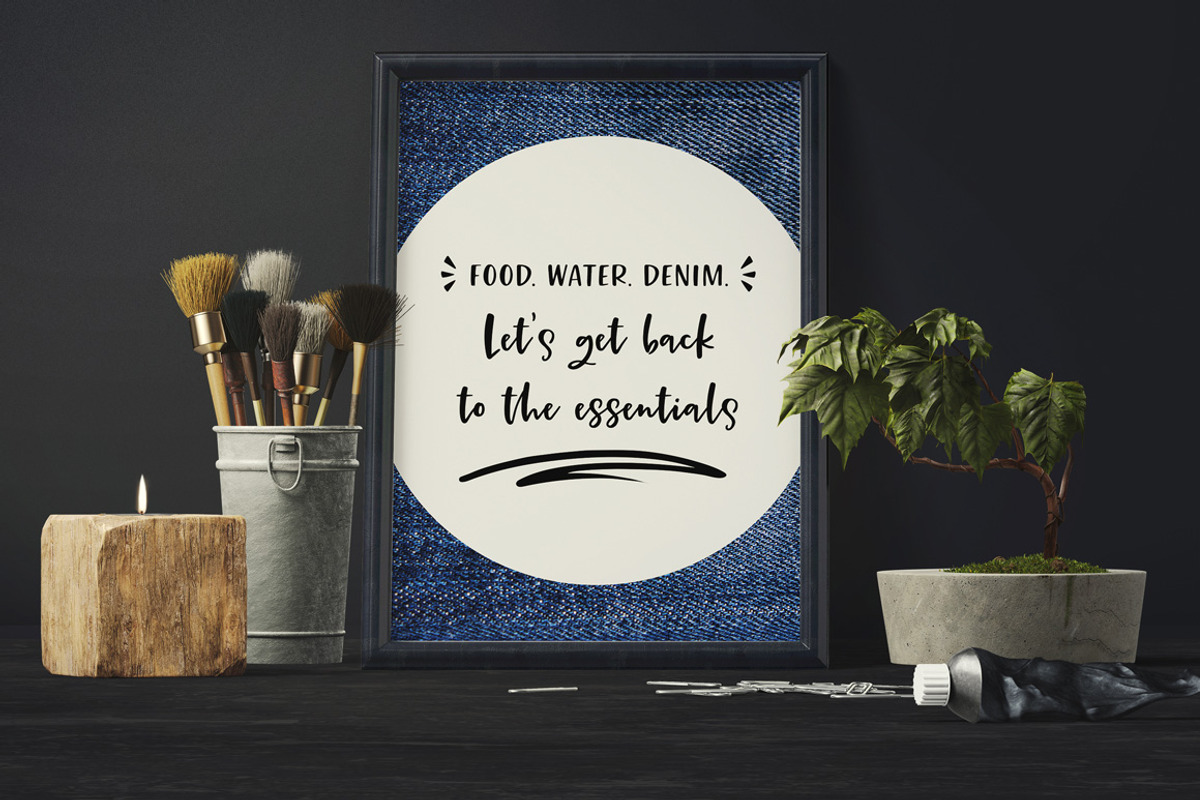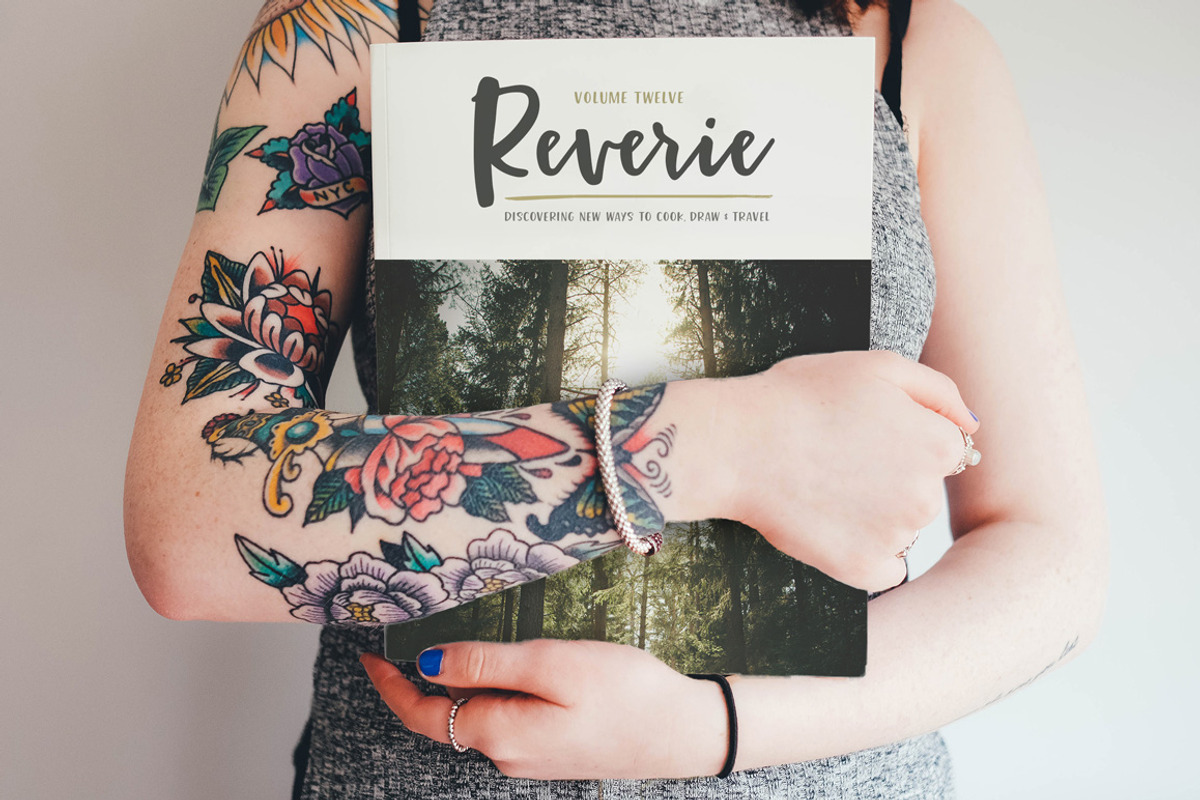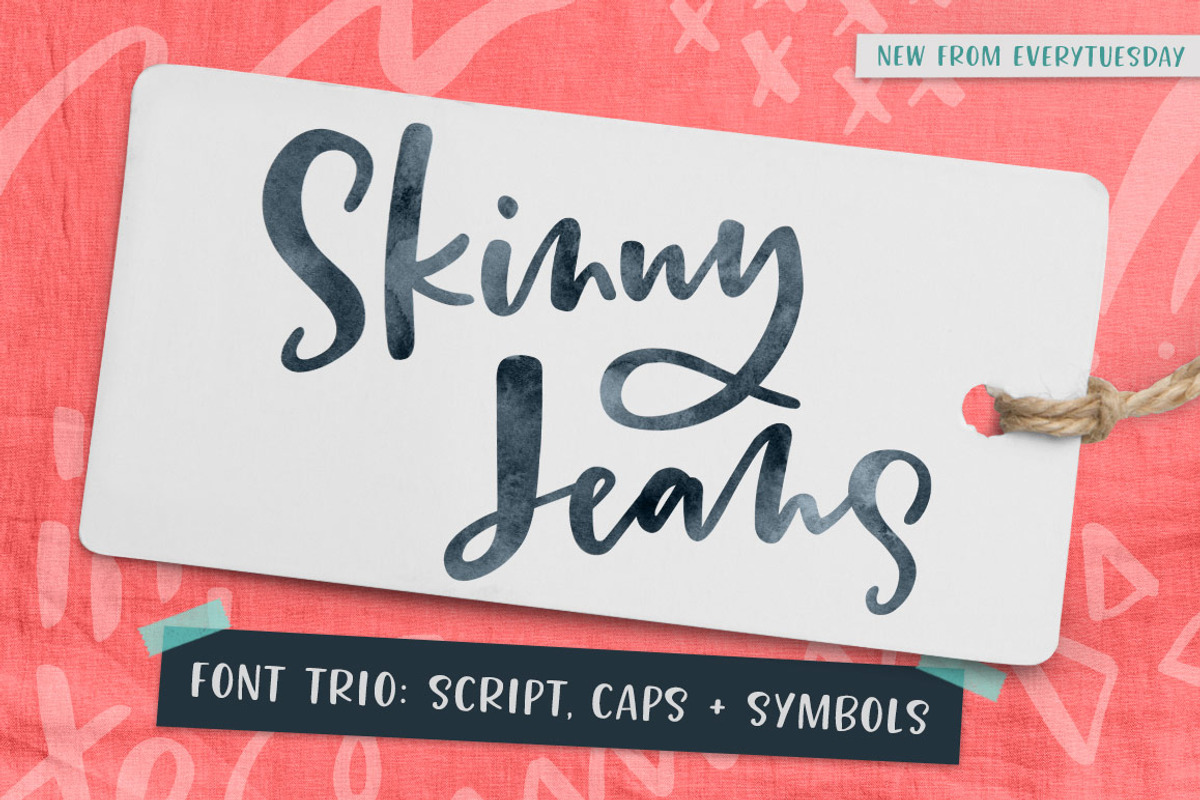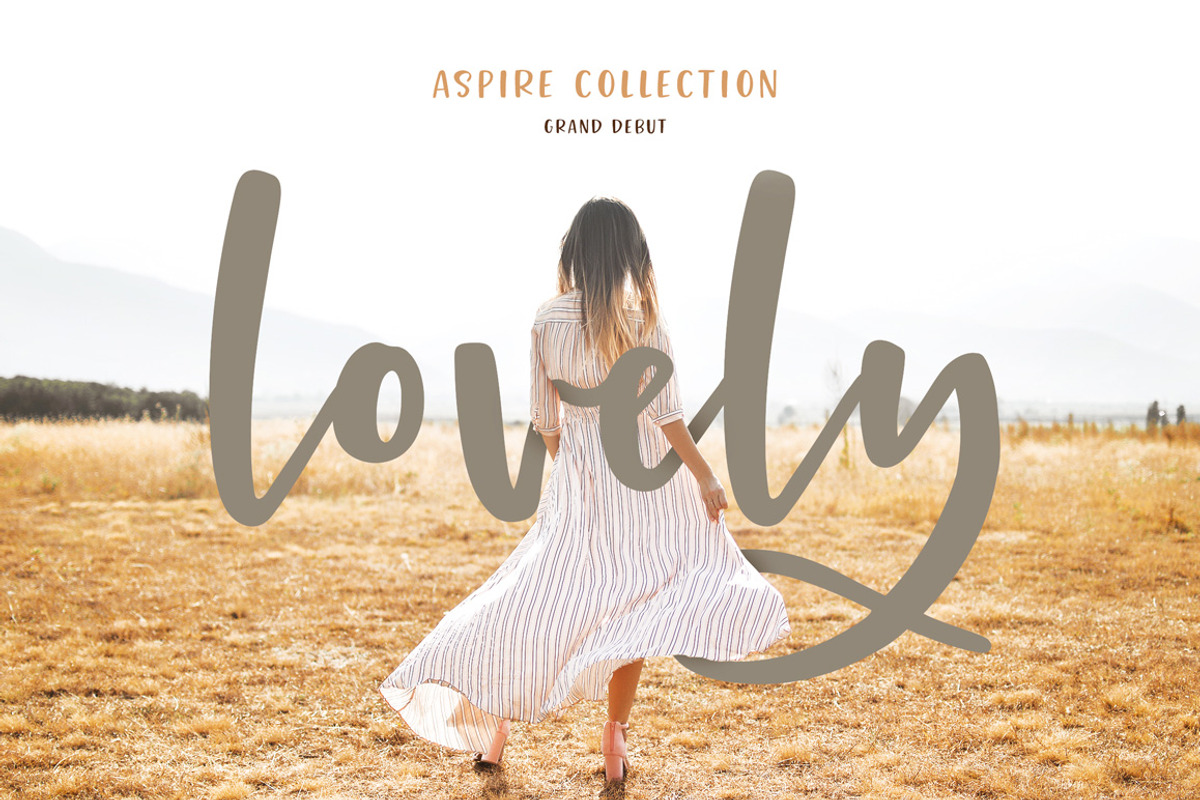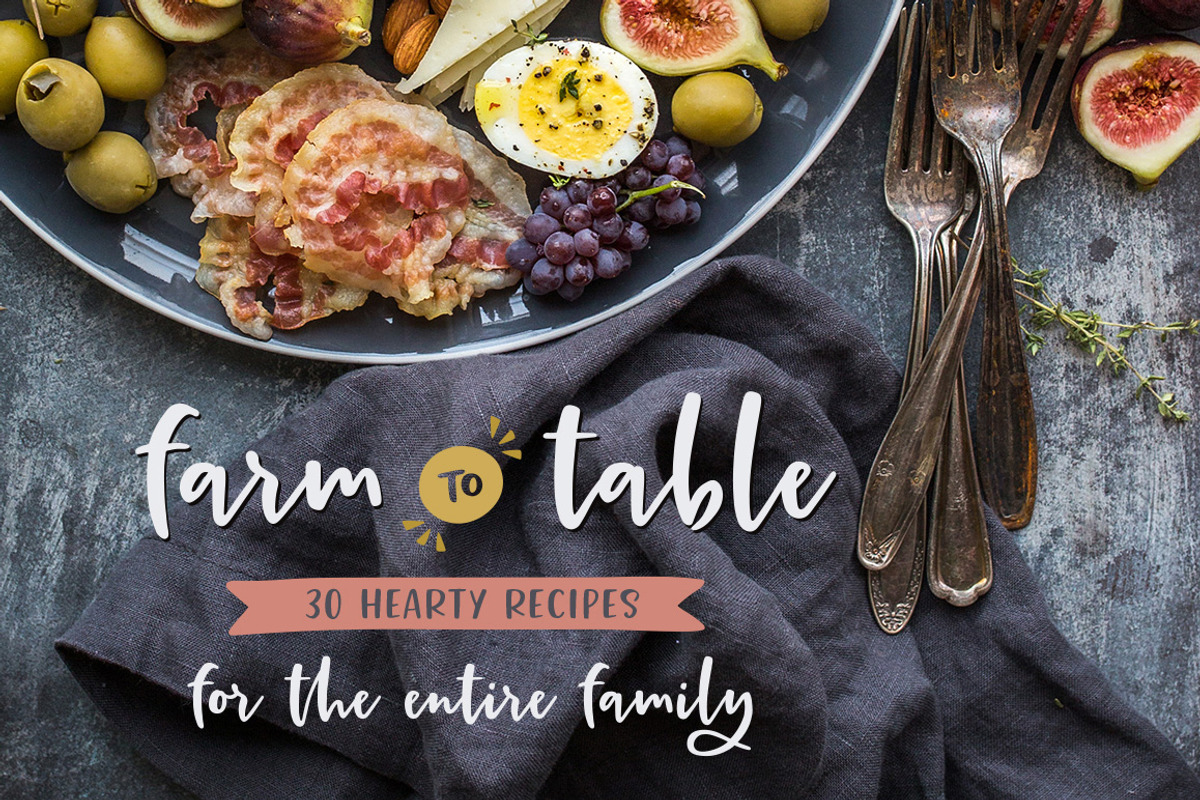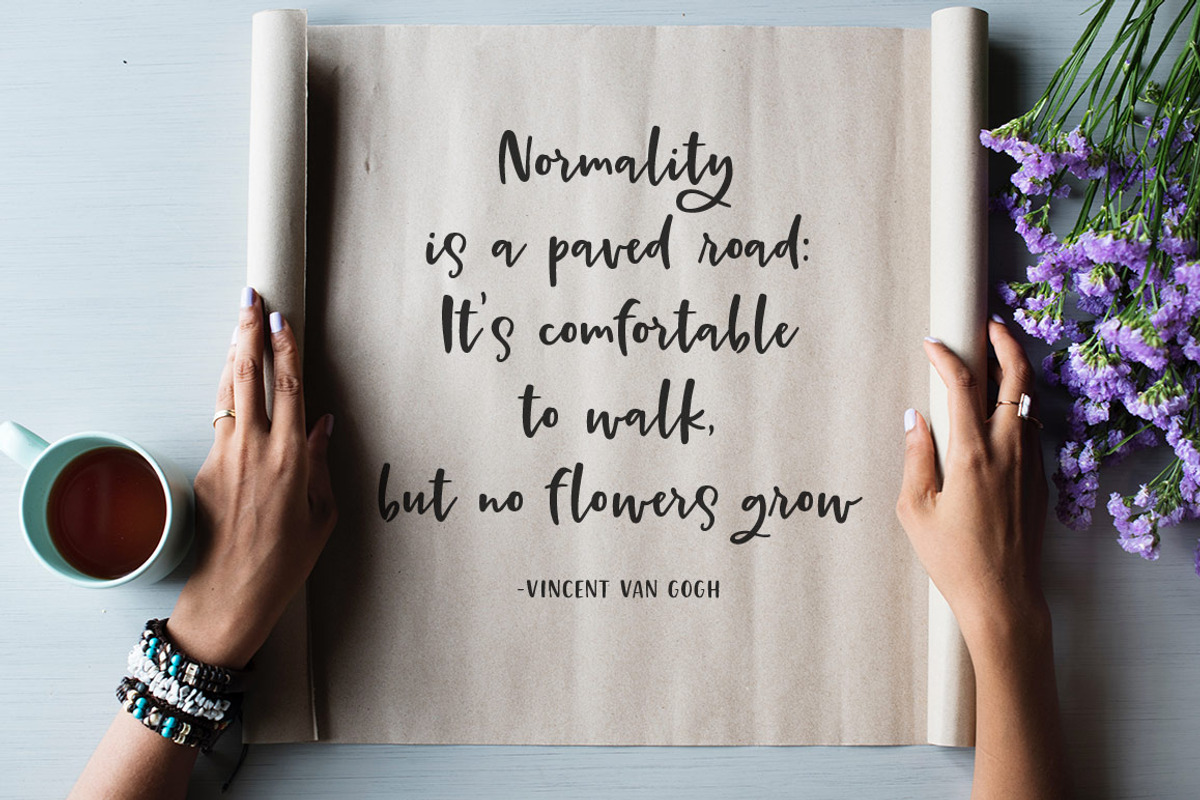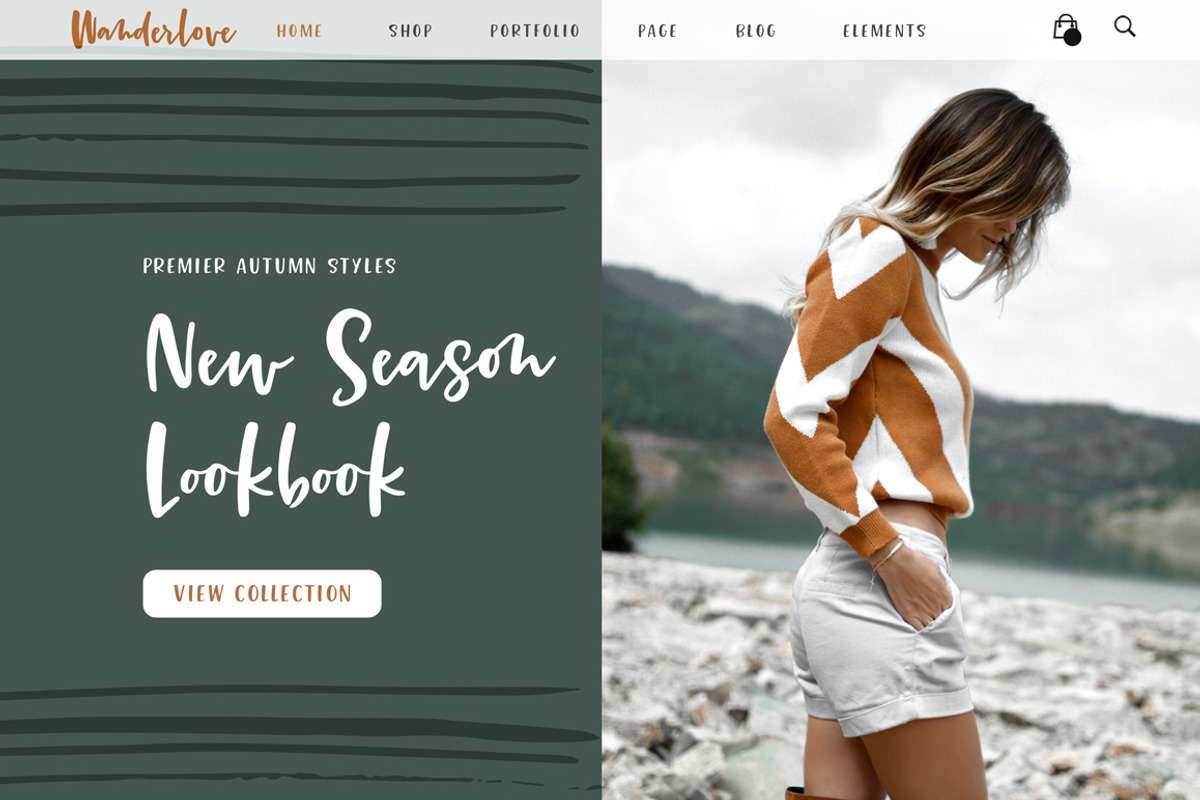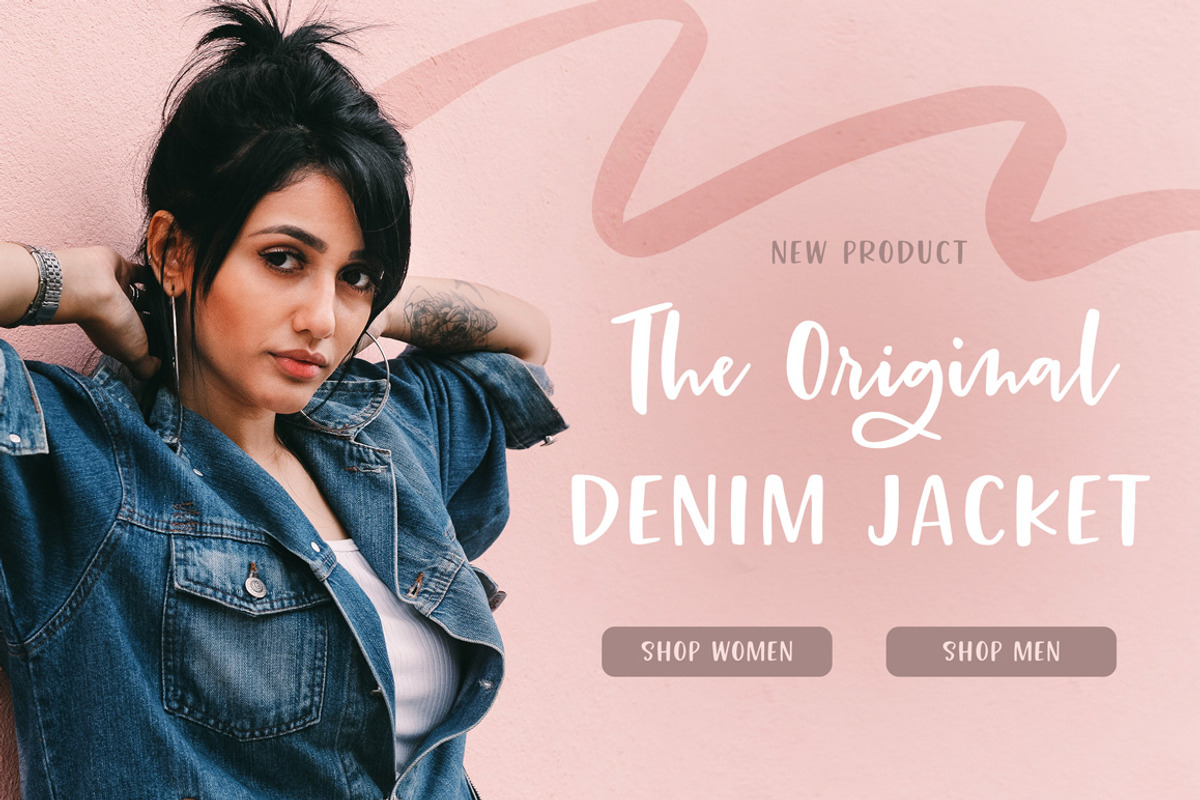
Skinny Jeans Font Trio
Introducing Skinny Jeans: a fashion-forward font perfect for high impact headlines, energetic engagements and personality-driven branding, social media posts and messaging.
Skinny Jeans includes 3 fonts: a script style, all caps and symbols font. All styles were designed to pair perfectly together, for super quick layouts and eye-catching outcomes.
A Script style with 27 ligatures and alternates, extra large looped y and g for more unique, hand lettered looks
An all caps style designed to pair perfectly with Skinny Jeans Script
A symbols font with over 50 unique, hand drawn doodles and illustrations. A different symbol is assigned to ever uppercase and lowercase standard character, plus numbers 0-9.